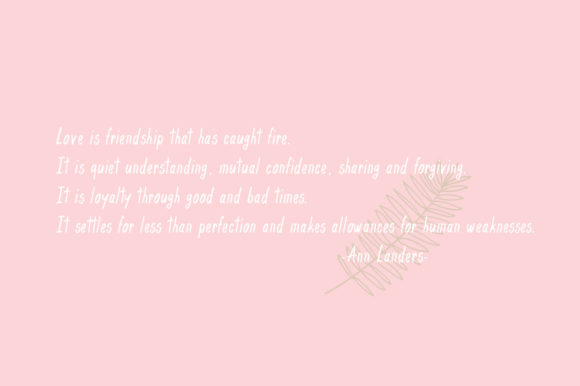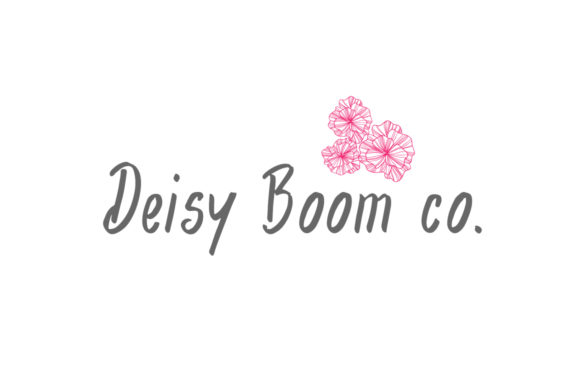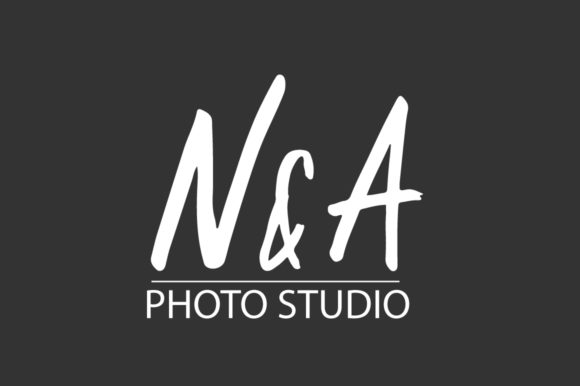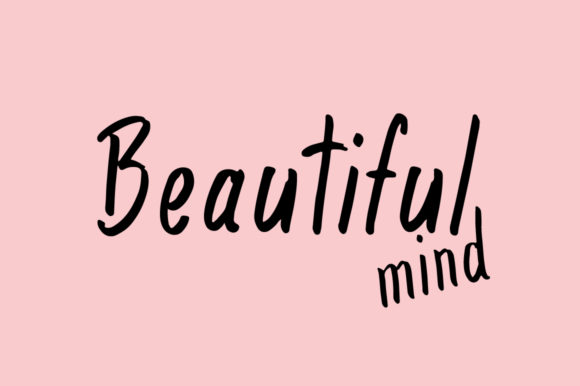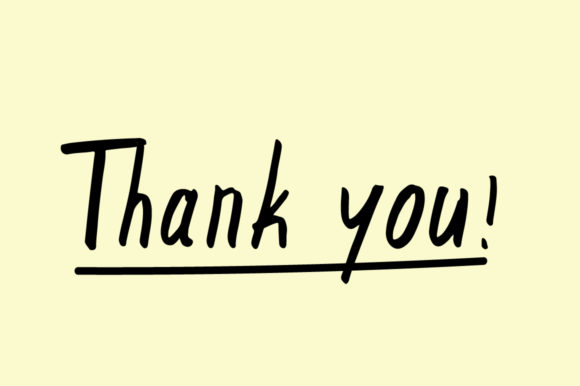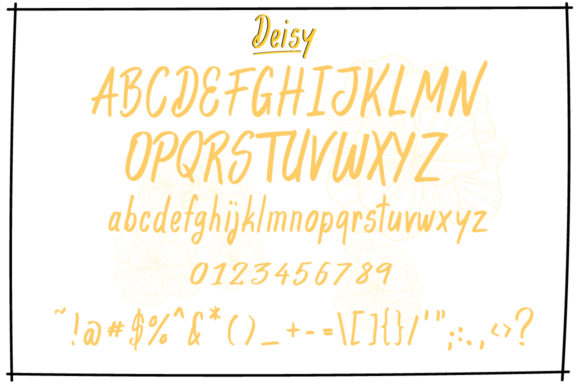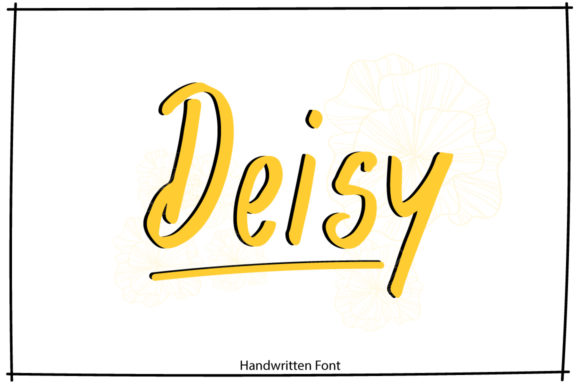
Introducing Deisy Font: The Perfect Choice for High-Impact Headlines
The Deisy font is a striking script font that has been making waves in the design community. Its unique and elegant style makes it perfect for high-impact headlines and any other design that needs to stand out. In this article, we’ll take a closer look at the Deisy font, its features, and how you can use it to elevate your designs.
What is Deisy Font?
The Deisy font is a beautiful script font that features elegant and flowing lines. It’s a carefully crafted font that is designed to make a statement. With its unique and distinctive style, the Deisy font is perfect for designers who want to add a touch of sophistication and glamour to their designs.
Key Features of Deisy Font
So, what makes the Deisy font so special? Here are some of its key features:
• Unique and elegant style: The Deisy font features a unique and elegant style that is perfect for high-impact headlines and designs.
• Script font: The Deisy font is a script font that features flowing lines and elegant curves.
• High-impact headlines: The Deisy font is perfect for high-impact headlines that need to stand out.
• Versatile: The Deisy font can be used for a variety of design projects, from branding and advertising to packaging and more.
How to Use Deisy Font in Your Designs
So, how can you use the Deisy font in your designs? Here are some ideas:
• Headlines and titles: Use the Deisy font to create eye-catching headlines and titles that grab attention.
• Branding and advertising: Use the Deisy font to create unique and memorable branding and advertising campaigns.
• Packaging design: Use the Deisy font to add a touch of elegance and sophistication to your packaging designs.
• Social media graphics: Use the Deisy font to create eye-catching social media graphics that stand out.
Tips for Using Deisy Font
Here are some tips for using the Deisy font in your designs:
• Use it sparingly: The Deisy font is a bold font, so use it sparingly to avoid overwhelming your design.
• Pair it with other fonts: Pair the Deisy font with other fonts to create a unique and interesting contrast.
• Experiment with colors: Experiment with different colors to find the perfect combination that works with the Deisy font.
The Deisy font is a striking script font that is perfect for high-impact headlines and designs. With its unique and elegant style, it’s a great choice for designers who want to add a touch of sophistication and glamour to their designs. Whether you’re working on a branding campaign, packaging design, or social media graphics, the Deisy font is a great choice. So why not give it a try and see how it can elevate your designs?